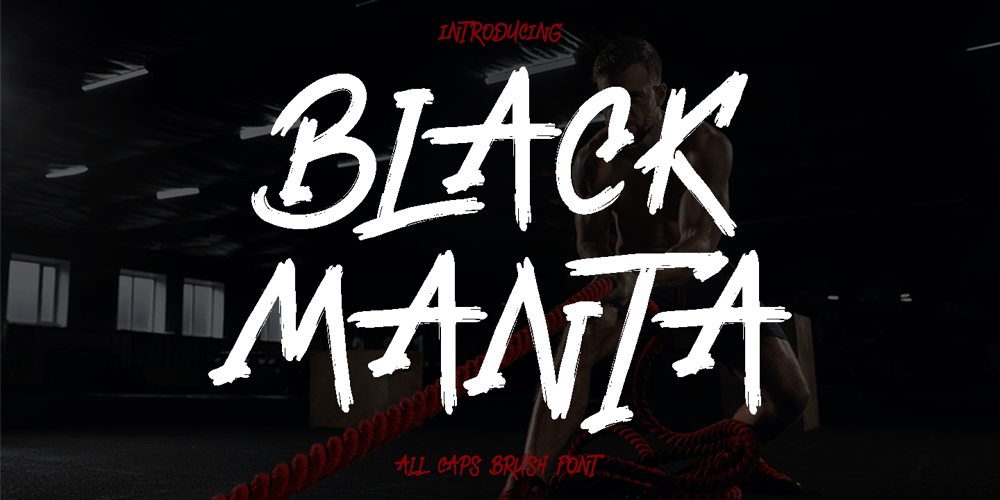
Black Manta Brush Font Family was designed by Aditiyo Dwi Putranto and published by Creaditive Design. Black Manta Brush contains 2 styles and family package options. Black Manta is a strong charactered, brushed display font. It looks fierce and urban and it will most certainly make each of your designs stand out. Add it confidently to your favorite creations and let yourself be amazed by the outcome generated.